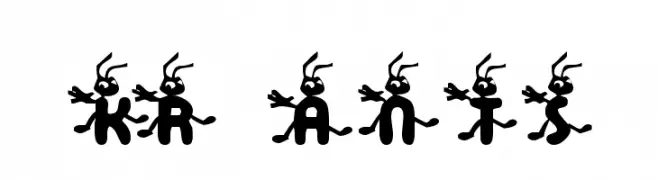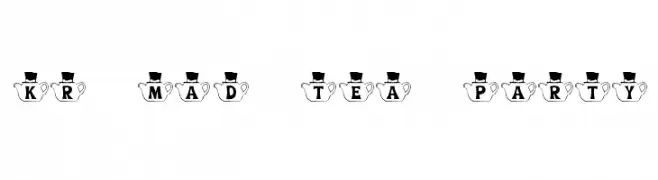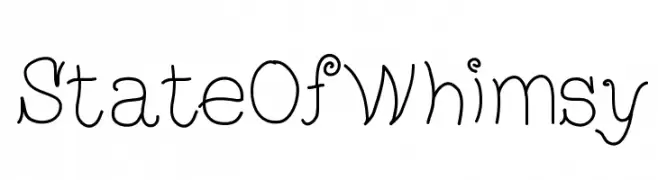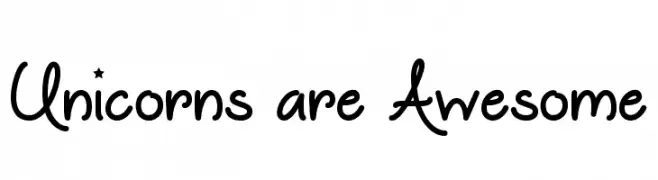
A playful, hand-drawn font with a crayon-like, whimsical style.
A whimsical font with letters inside teapot designs, topped with a hat.
A whimsical and decorative font with playful curls and swirls, perfect for children's themes.
A playful, ant-themed decorative font with bold, cartoonish characters.
A playful, angel-themed font with bold, cartoonish characters.
A whimsical font with characters inside chef hats, perfect for playful designs.
A playful, bat-themed decorative font perfect for Halloween designs.
A whimsical, cloud-themed font with bold, rounded characters.